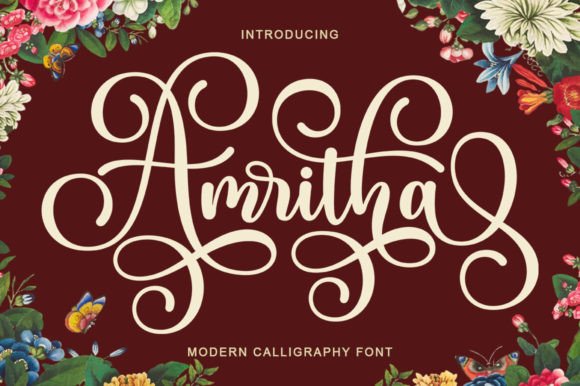
Introducing Amritha Font, the perfect choice for creating a captivating and heartfelt Christmas card! Crafted by the talented IRF Lab Studio, this elegant and flowing handwritten font is designed to elevate your holiday projects to new heights.
With its varied baselines, smooth lines, and gorgeous glyphs, Amritha Font exudes a timeless beauty that will capture the essence of the holiday season. Its stunning alternatives add a touch of uniqueness and creativity, allowing you to personalize your designs with ease.
Amritha Font embraces both tradition and modernity, blending a classy calligraphic influence with a contemporary twist. Its graceful curves and intricate details create a sense of refinement that will leave a lasting impression on your recipients.
Imagine the joy on your loved ones' faces as they receive a Christmas card adorned with the exquisite Amritha Font. The script style lends a touch of warmth and intimacy, evoking feelings of love, togetherness, and holiday cheer.
Whether you're designing a heartfelt message, a festive invitation, or a stunning holiday graphic, Amritha Font is the ultimate tool to express your creativity. Its versatility allows it to shine in various contexts, making it a must-have for any design enthusiast.
Unlock the full potential of your Christmas projects with Amritha Font. Enchant your audience with its enchanting charm, and let your words dance across the page in a truly mesmerizing manner. From elegant greeting cards to eye-catching social media posts, this font will transform your designs into works of art.
Turn your Christmas wishes into a masterpiece with Amritha Font. Add a touch of sophistication and charm to your projects, and watch as your creations become the talk of the season. Get ready to spread joy, love, and holiday spirit with this remarkable font.